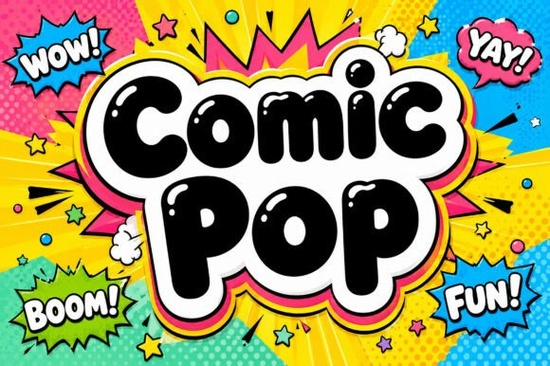
If you're looking for a display font that grabs attention without sacrificing polish, the Comic Pop Font might be exactly what your next project needs. Designed with boldness in mind, it’s built for creators who want their headlines to stand out whether you’re designing festival posters, youth sports merch, or animated stream graphics. Unlike generic “fun” fonts that can feel childish or cluttered, Comic Pop balances exaggerated weight with clean, hand-finished details that give it a professional edge.
What makes this font unique is how it layers visual elements: plump letterforms are wrapped in a soft white outline, then backed by a vibrant neon yellow and pink comic-style burst. The glossy highlights mimic an airbrush effect, adding depth without overwhelming the design. It’s not just loud it’s intentionally loud, with structure and contrast that keep it legible even at large sizes.
When should you use Comic Pop?
This isn’t a body text font it’s a headline hero. You’ll get the most out of Comic Pop in contexts where energy and visibility matter most:
- Streaming overlays for gaming or live events, where quick readability and visual pop are key
- Sticker and apparel designs targeting teens or young adults who love pop culture and action aesthetics
- Festival or concert promotions that need to convey excitement at a glance
- Comic book covers or indie zines looking for a modern twist on classic comic typography
- Youth sports branding think team logos, banners, or custom water bottles
Because of its heavy weight and layered outlines, it works best when given breathing room. Avoid tight spacing or busy backgrounds; let the font dominate the space it’s meant to fill.
How does it compare to other playful display fonts?
Not all bold display fonts deliver the same vibe. If you like the energy of Comic Pop but want something slightly different, consider these alternatives from Creative Fabrica:
- For a gemstone-inspired sparkle with sharp geometry, try the Gemstone Font.
- If you prefer bouncy, hand-drawn whimsy over comic intensity, the Wiggle Whistle Font offers cheerful irregularity.
- Looking for retro athletic appeal? The Prime Varsity Font channels classic school spirit with clean lines.
- For dreamy, storybook charm with a modern touch, the Rabbit Hole Font blends elegance and playfulness.
Each of these serves a distinct mood. Comic Pop sits firmly in the high-energy, pop-art camp ideal when your message needs to feel dynamic, confident, and instantly engaging.
Practical tips for using Comic Pop effectively
Because of its detailed outlines and layered effects, here’s how to get the best results:
- Use it at large sizes. The highlights and outlines lose impact below 36pt.
- Pair it with minimal sans-serifs. A clean font like Montserrat or Helvetica Neue lets Comic Pop shine without competition.
- Avoid dark backgrounds unless you adjust the outline. The default white boundary may disappear on black consider recoloring the stroke if needed.
- Don’t overuse it. One headline per layout is usually enough. Its strength comes from contrast, not repetition.
Who is this font really for?
Print-on-demand sellers creating limited-run tees for music festivals will appreciate how quickly it conveys attitude. Small business owners launching a youth-focused product like energy drinks or skate gear can use it to signal vibrancy without looking unprofessional. Hobbyists making birthday banners or classroom decorations will find it easy to work with in Canva, Photoshop, or Silhouette Studio, especially since it includes standard Latin characters and common punctuation.
Just remember: this font isn’t subtle. But if your goal is to make people stop scrolling, pause mid-walk, or click that “Watch Now” button, subtlety isn’t what you need.
Before you download, ask yourself:
- Is my project meant to feel energetic, bold, or celebratory?
- Will this headline be viewed from a distance or on a screen?
- Do I have space to let the font breathe without competing visuals?
If you answered “yes” to most of these, Comic Pop could be your secret weapon for turning ordinary designs into eye-catching statements.